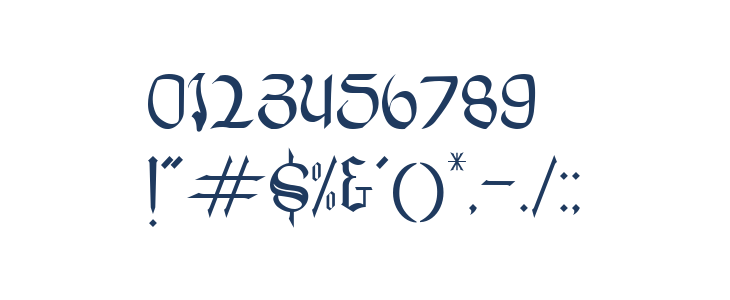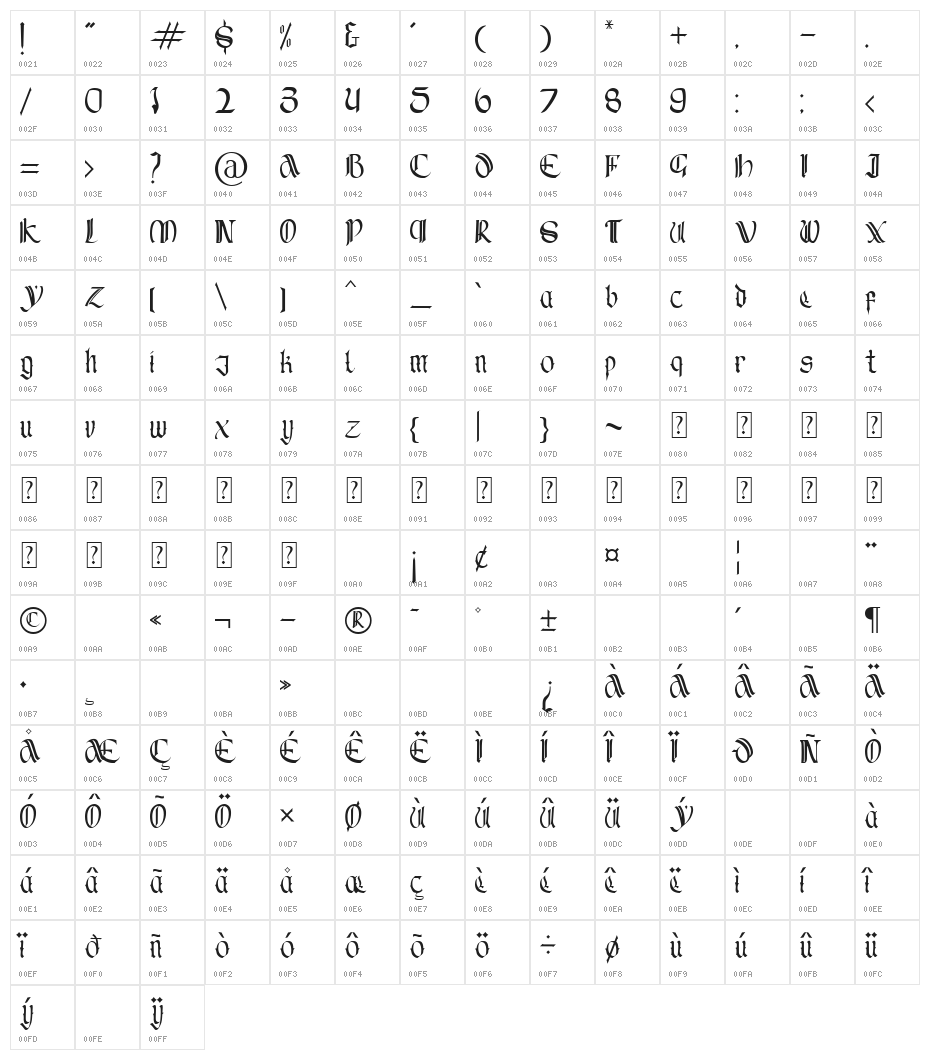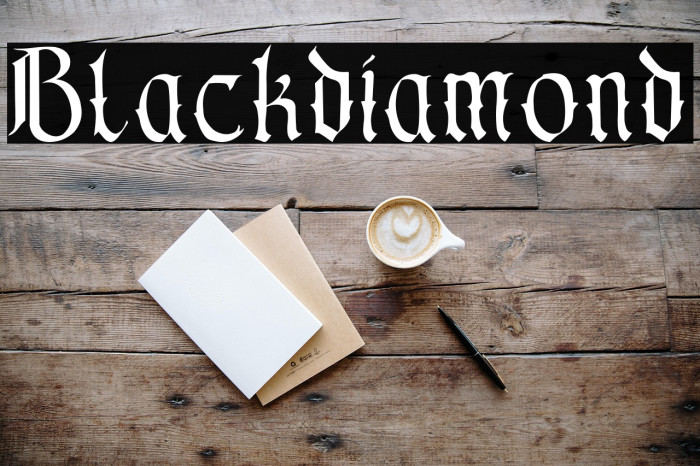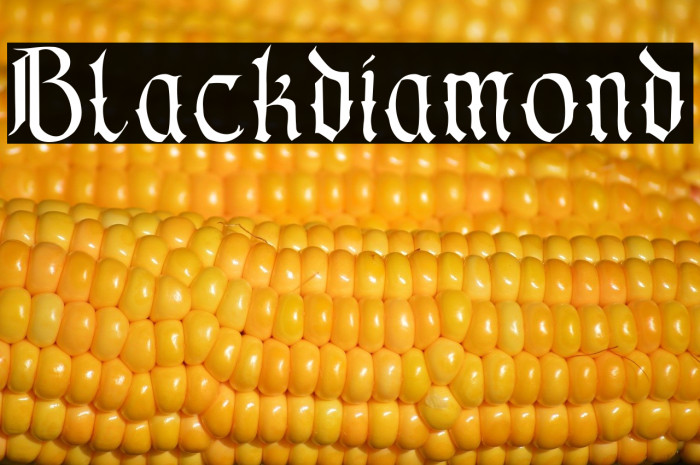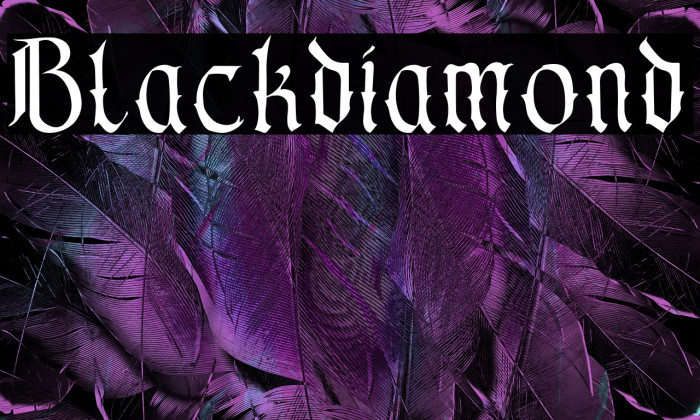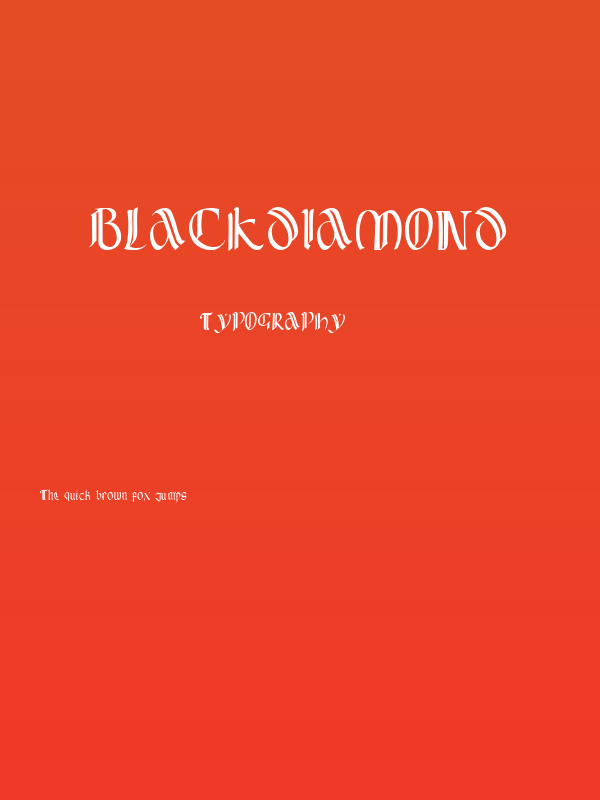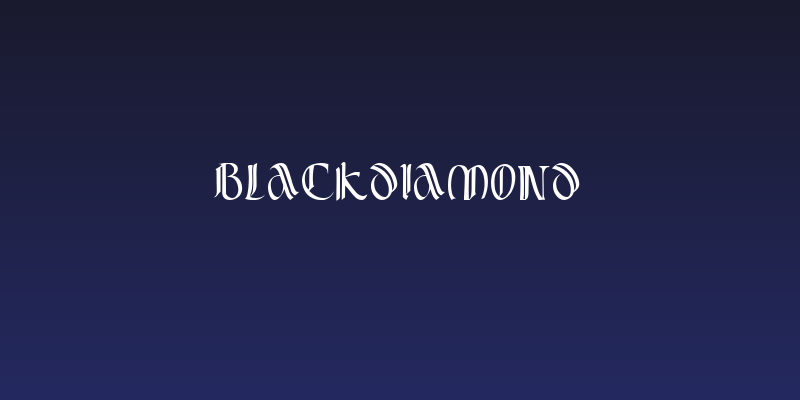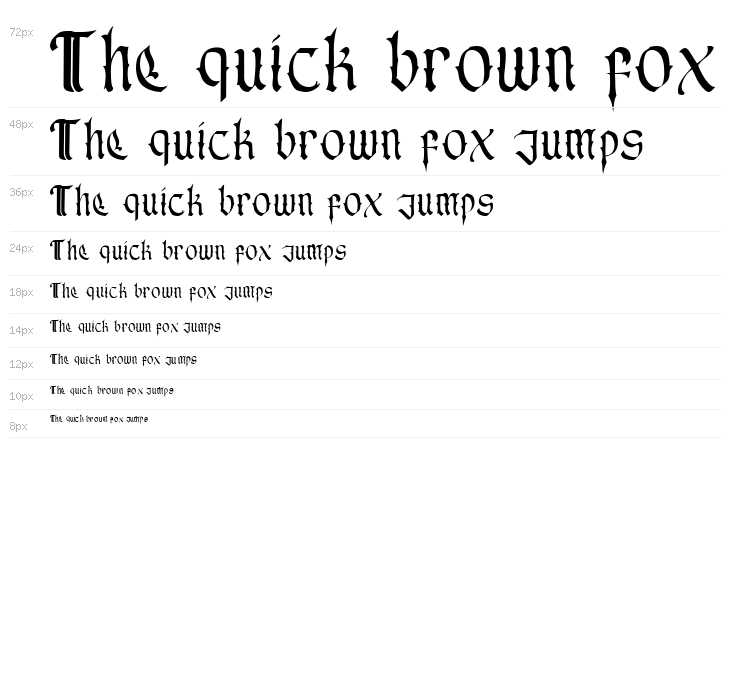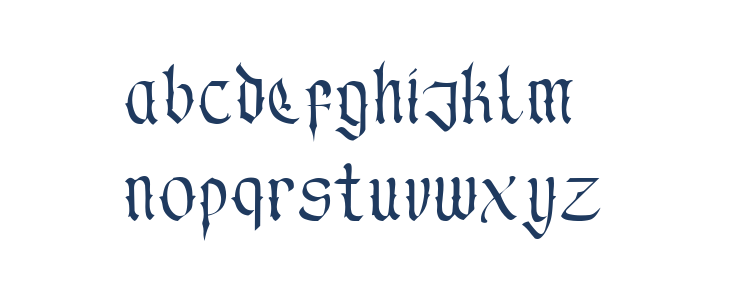
Blackdiamond Font
Blackdiamond Description
This font exhibits a striking and bold blackletter style, characterized by its sharp, angular lines and dramatic flourishes. The uppercase letters are particularly ornate, with intricate details that evoke a sense of historical elegance and gothic influence. The lowercase letters maintain the same stylistic elements, ensuring consistency throughout. Numbers and special characters are designed with the same attention to detail, making them stand out with their unique, medieval-inspired appearance. This font is perfect for projects that require a touch of vintage or historical flair, while still maintaining readability.
| Proposed Projects | Ideal for use in branding, posters, book covers, and any design requiring a historical or gothic aesthetic. |